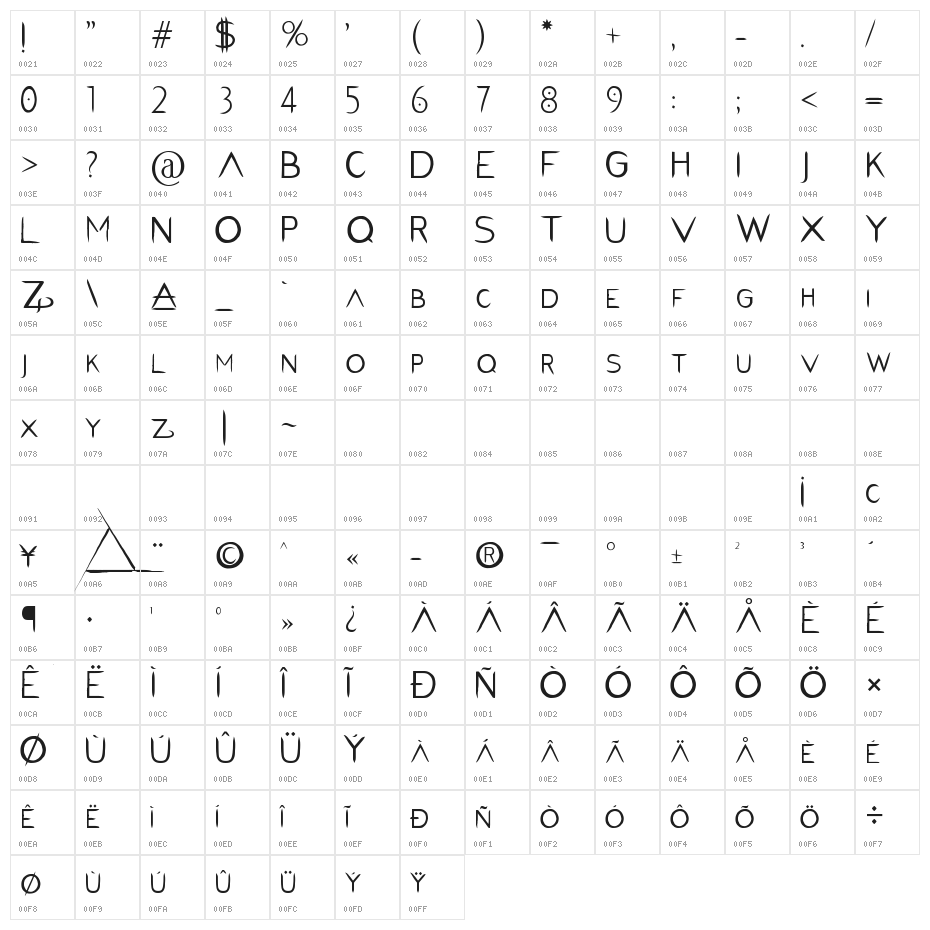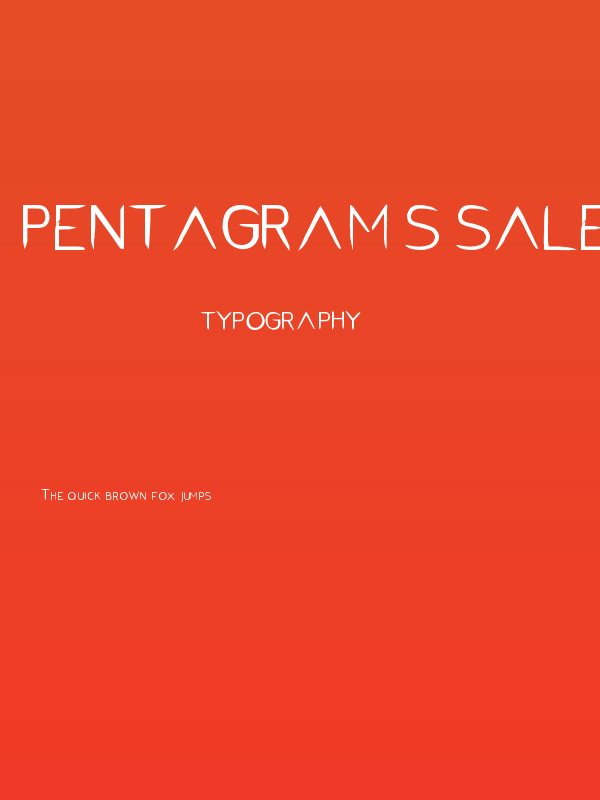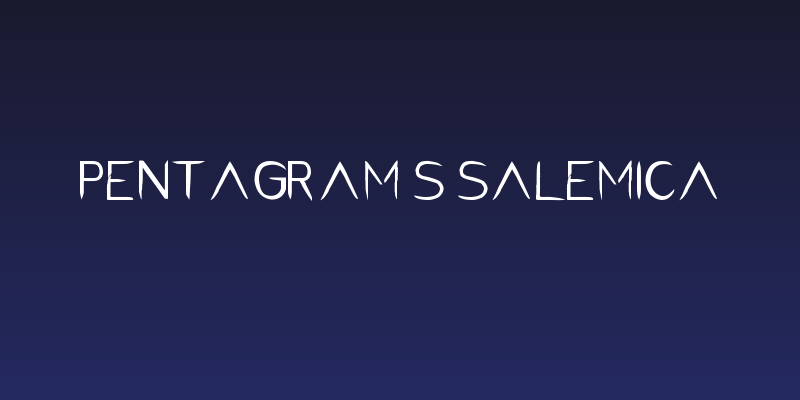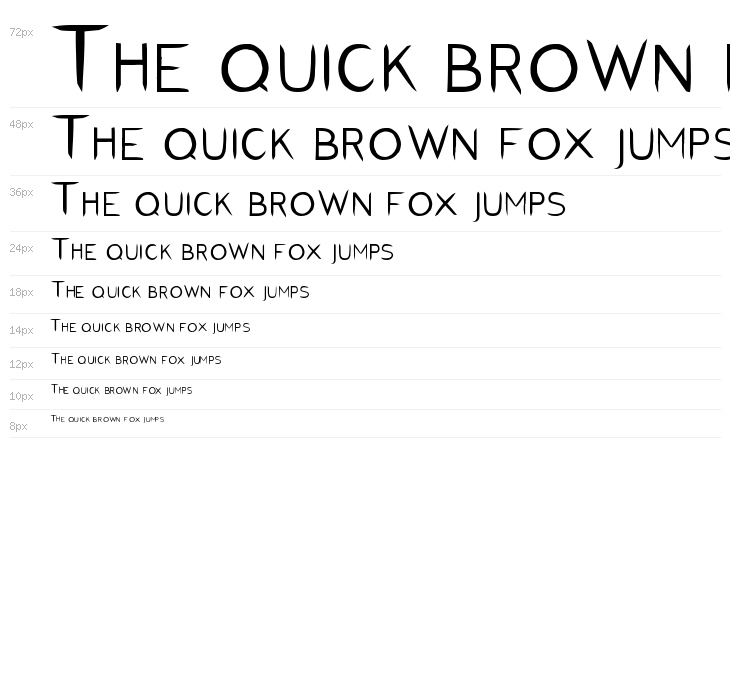
PentaGram s Salemica Font
PentaGram s Salemica Description
This font features a unique and artistic design, characterized by sharp, angular lines and a slightly gothic aesthetic. The uppercase letters have a distinct, pointed style, while the lowercase letters maintain a consistent flow with subtle curves. The numerals are bold and maintain the angular theme, adding a touch of modernity. Special characters are creatively designed, enhancing the font's overall artistic appeal. This font is suitable for projects that require a dramatic and eye-catching look, such as posters, album covers, or themed events.
| Proposed Projects | Ideal for posters, album covers, themed events, and artistic projects. |